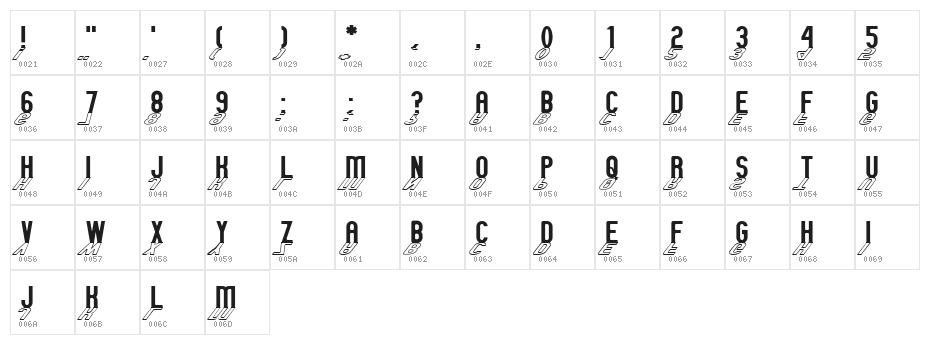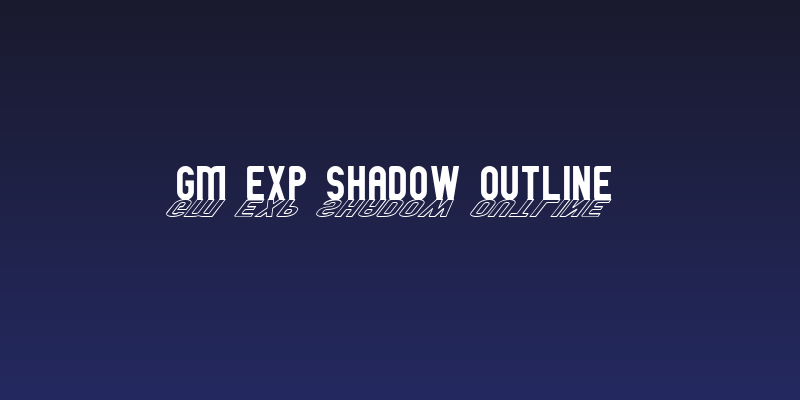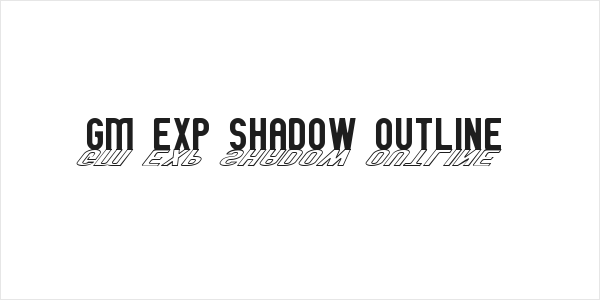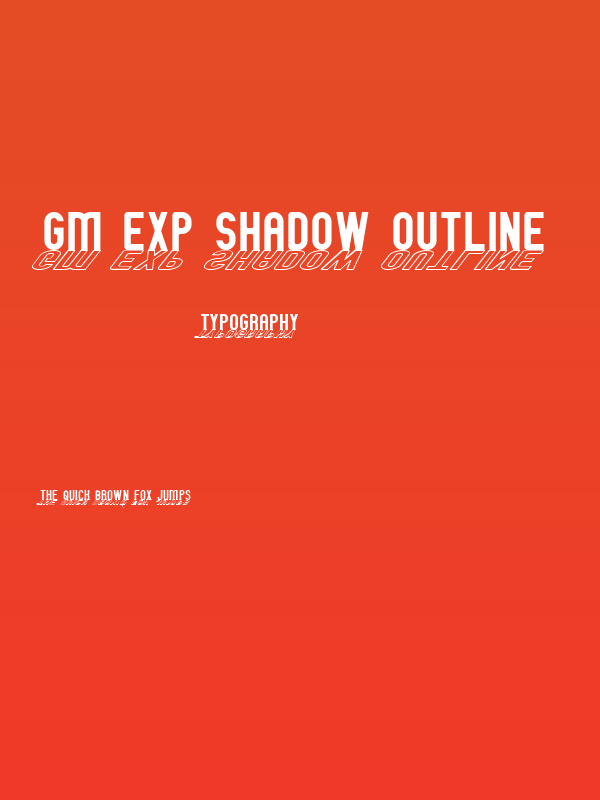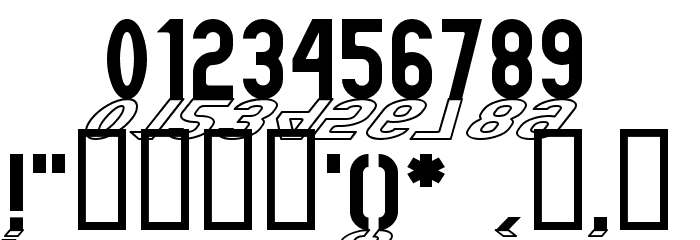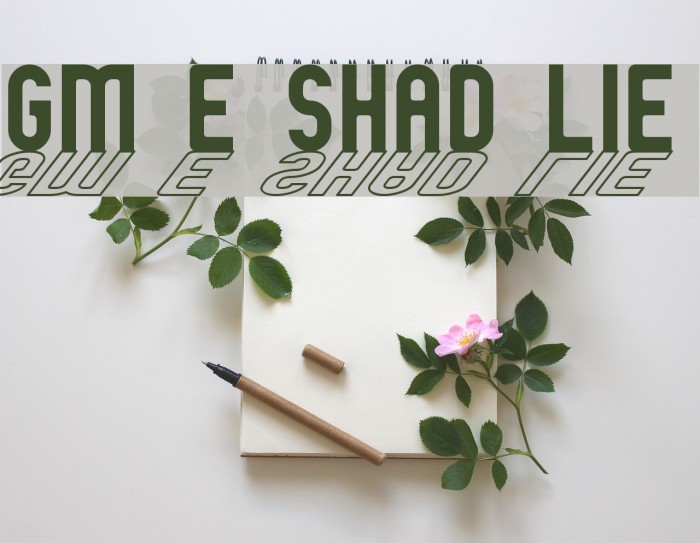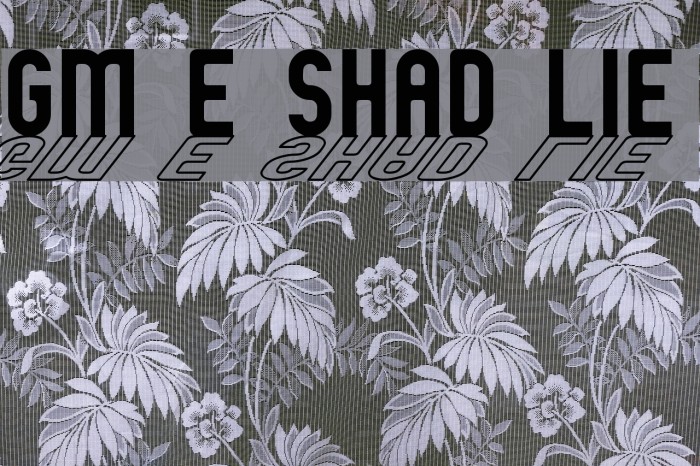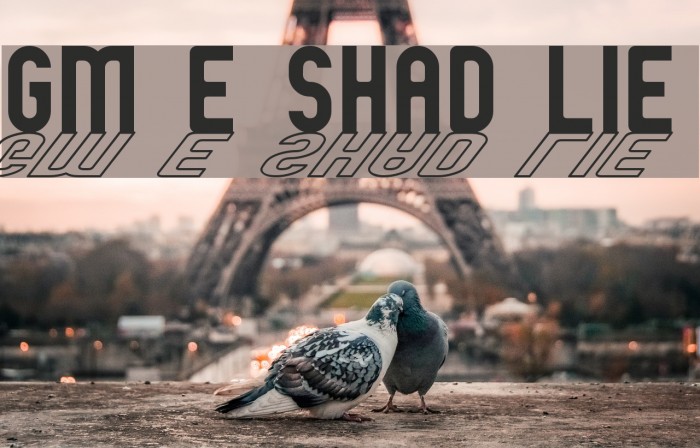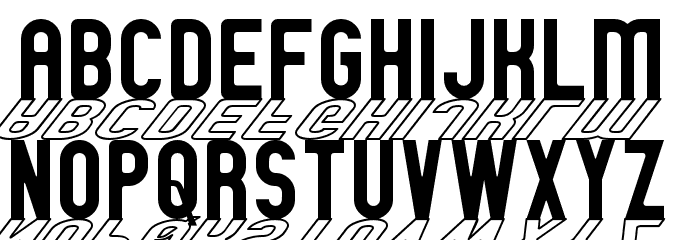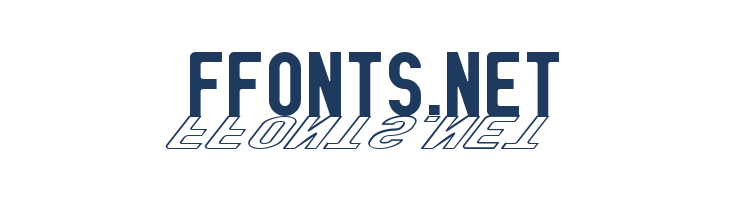
GM Exp Shadow outline Font
This font features a bold, shadowed outline style that gives it a striking and dynamic appearance. The uppercase letters are tall and narrow, with a distinct shadow effect that adds depth and dimension. The lowercase letters maintain the same shadowed style, creating a cohesive look across the alphabet. The numerals are similarly designed, ensuring consistency throughout. The special characters include a variety of symbols, each with the same bold outline and shadow, making them stand out. This font's unique style is both modern and eye-catching, suitable for projects that require a strong visual impact.
| Proposed Projects | Ideal for headlines, posters, branding, and any design needing a bold statement. |